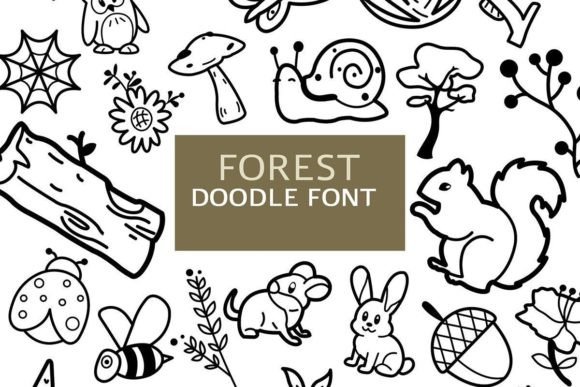
Introducing Forest Doodle Font, the ultimate choice for adding a touch of whimsy and creativity to your projects! Created by digitalplannerland, this fun and cute dingbat font is the perfect companion for all your crafting adventures.
With its wide range of playful symbols and icons, Forest Doodle Font offers endless possibilities for expressing your unique style. Whether you're designing a modern resume, creating eye-catching graphics, or adding a charming touch to your planner or diary, this font has got you covered.
Unleash your imagination and let Forest Doodle Font bring your ideas to life. Its versatility knows no bounds, making it the go-to choice for designers, artists, and craft enthusiasts alike. From delightful woodland creatures to whimsical trees and flowers, this font offers a delightful assortment of doodles that will captivate and enchant your audience.
But Forest Doodle Font is not just about aesthetics; it's also about functionality. With its extensive collection of symbols, you can effortlessly elevate your designs and convey messages with a touch of creativity. Whether you're designing a logo, creating social media graphics, or crafting activity books for children, this font will make your work stand out from the crowd.
What sets Forest Doodle Font apart is its ability to evoke emotions and create a connection with your audience. Its charming and friendly characters will instantly draw attention and make your projects unforgettable. From the moment your audience lays eyes on your creations, they'll be captivated by the whimsical and joyful atmosphere that Forest Doodle Font brings.